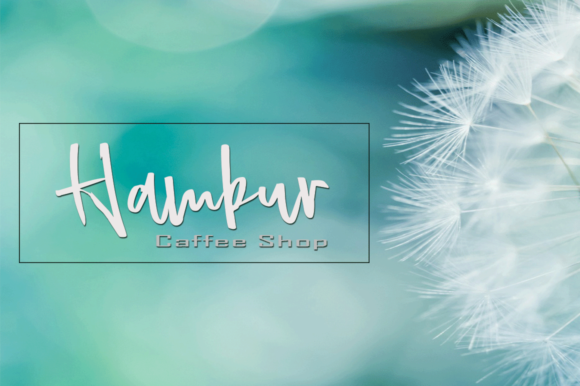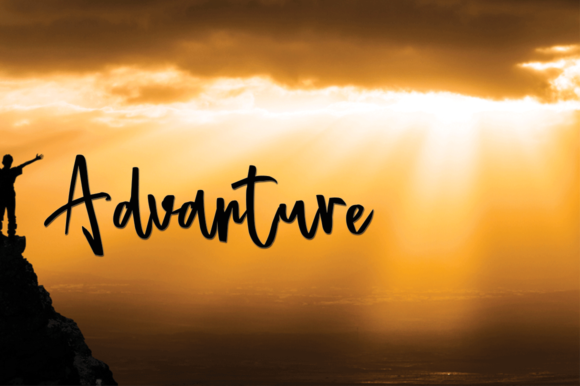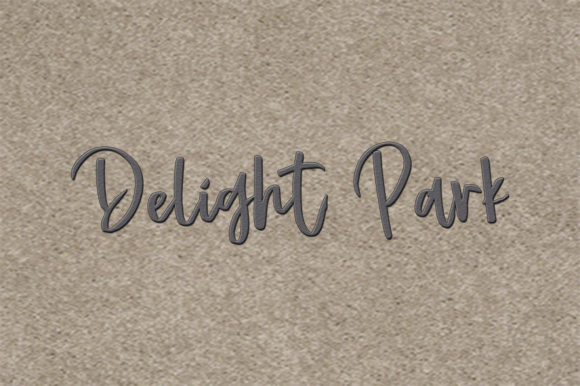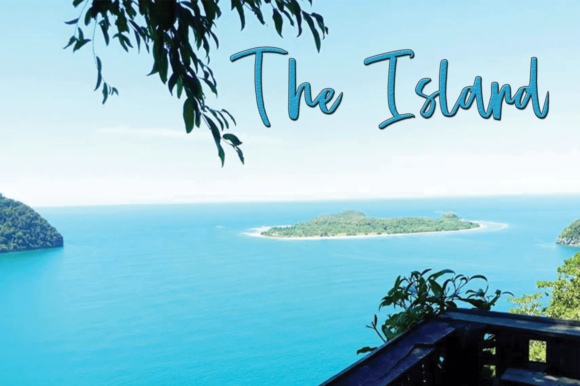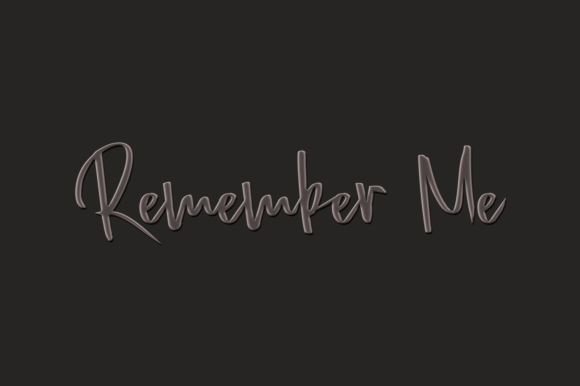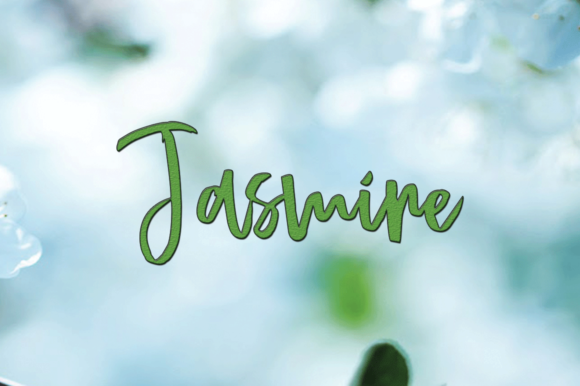
Break out Font
About Break out Font
Break Out is a classic caligraphy font with a contemporary twist. Use it for any creative project that needs an authentic touch.